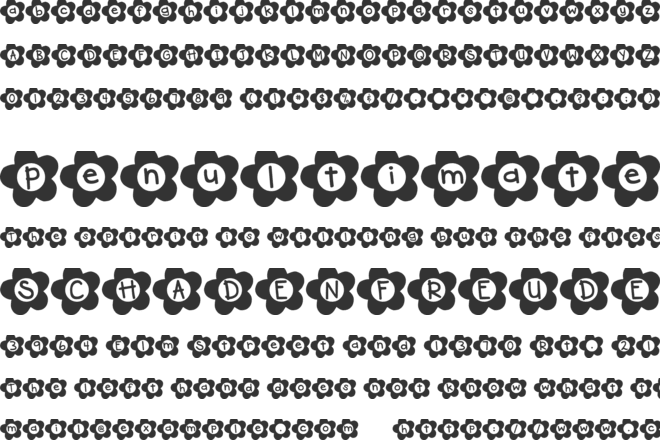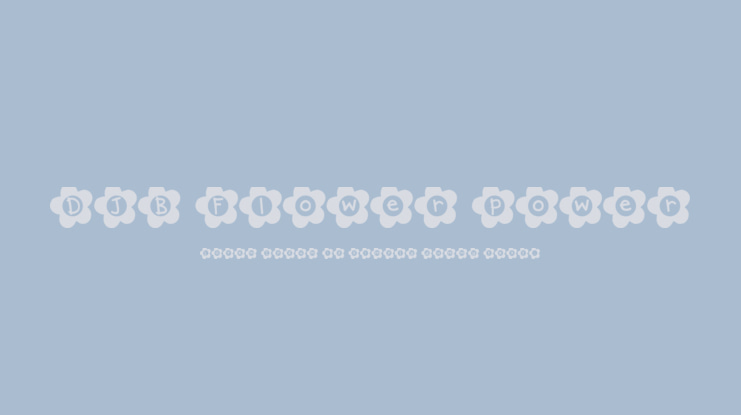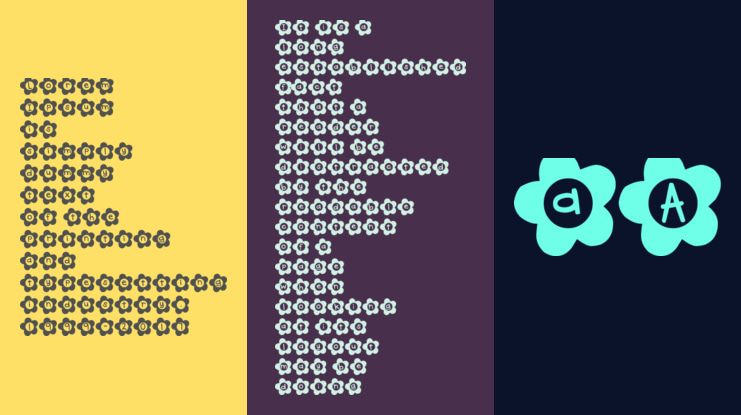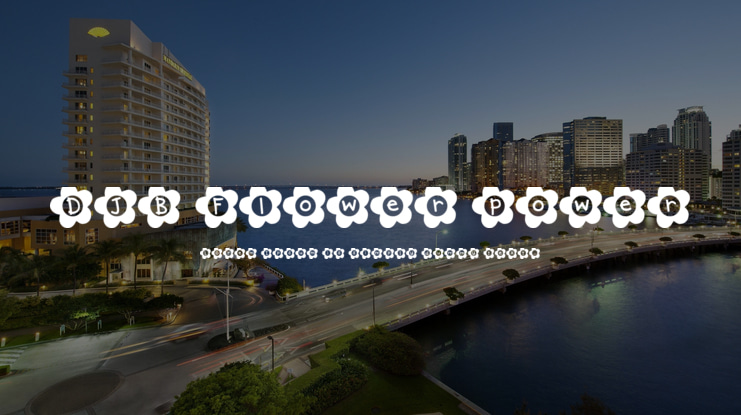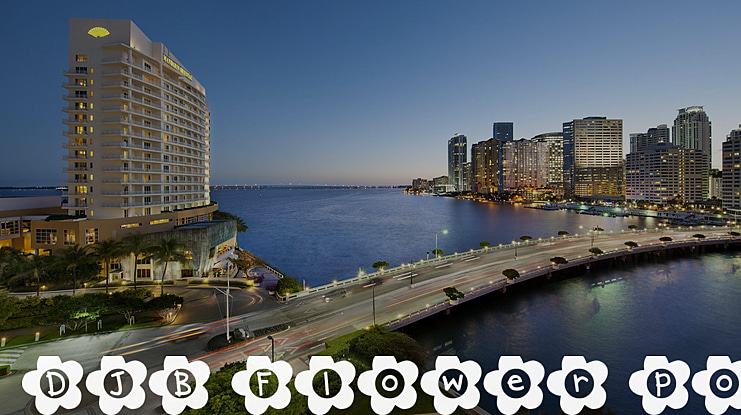
DJB Flower Power Font Family
This cute flower font comes in 2 styles with limited European language characters (Spanish, French, German, Italian, Scandinavian). It is free for personal use (not for profit) only. Please visit http://darcybaldwin.com/commercial-use for commercial licensing information.